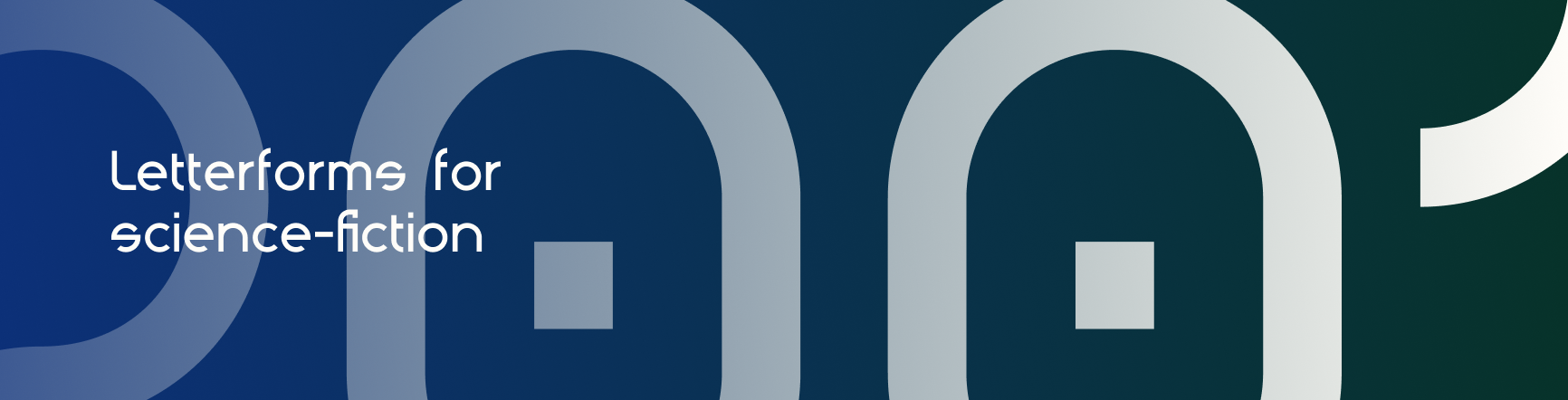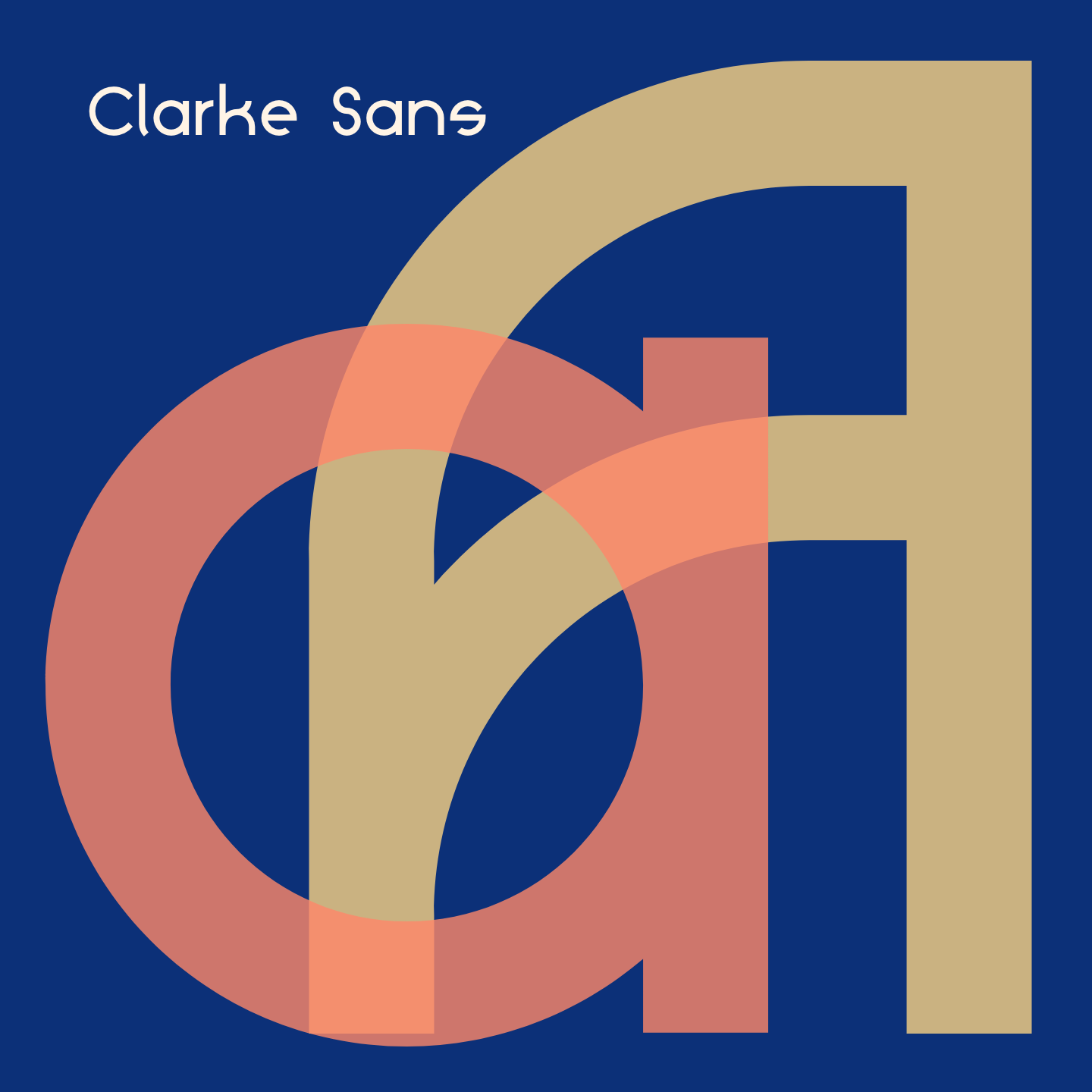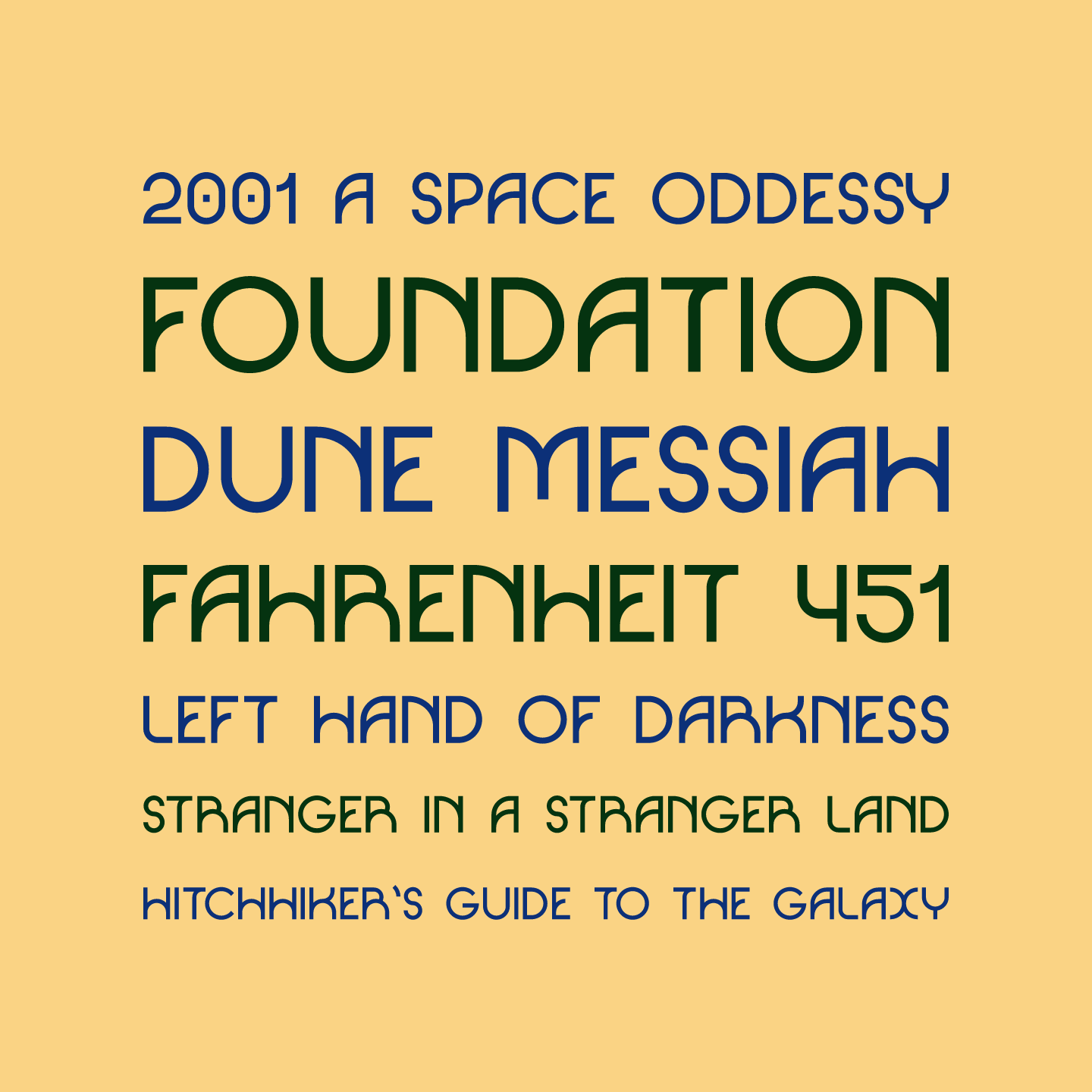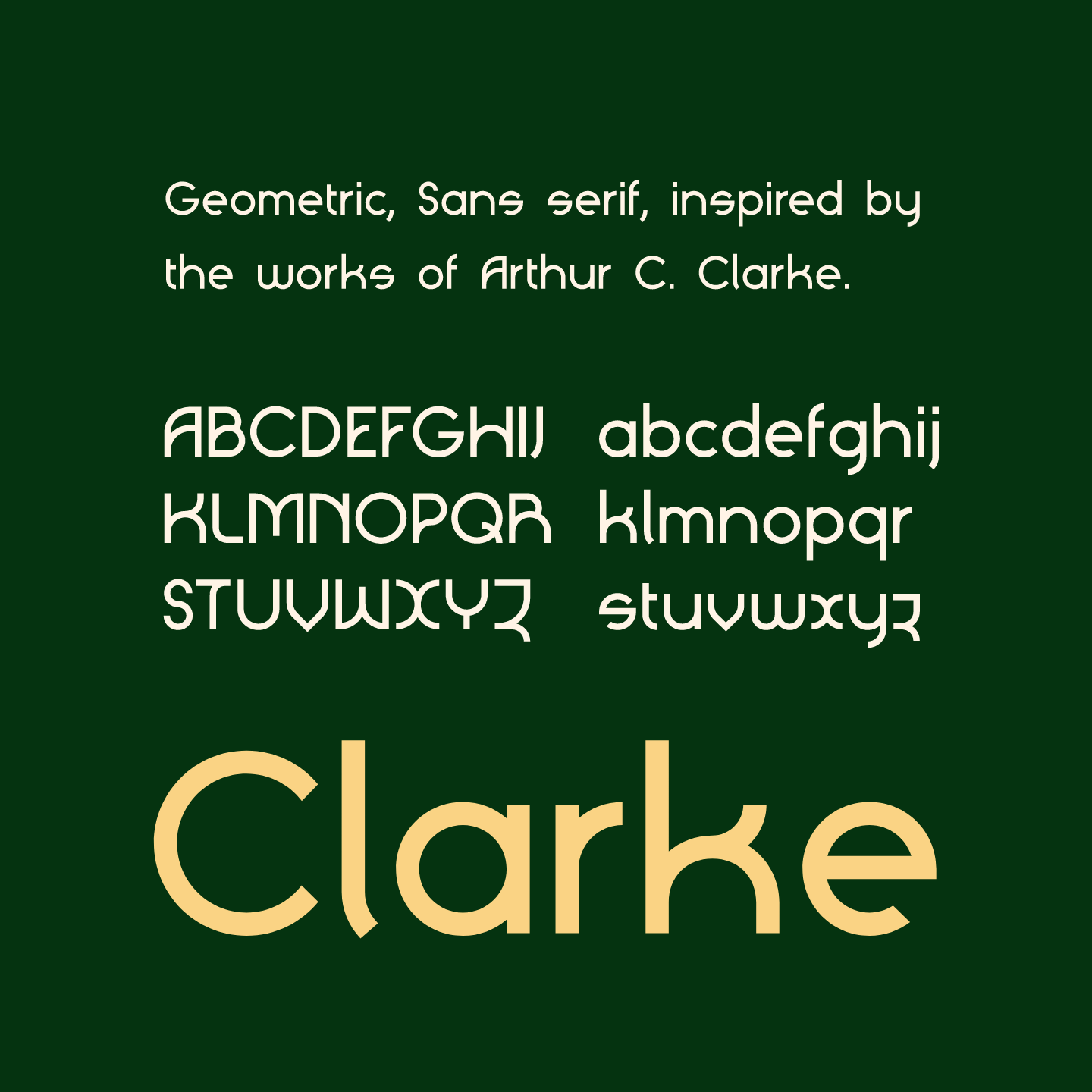
Clarke Sans is a geometric sans serif that gets its name from the writer Arthur C. Clarke. It is inspired by the style of the mid-century paperback sci-fi novels, known for their dramatic book covers.
Clarke Sans was created in conjunction with Tyler Jamieson Moulton’s senior design thesis, Anatomizing Science Fiction, which drew from his library of sci-fi paperbacks to create a series of information designs.